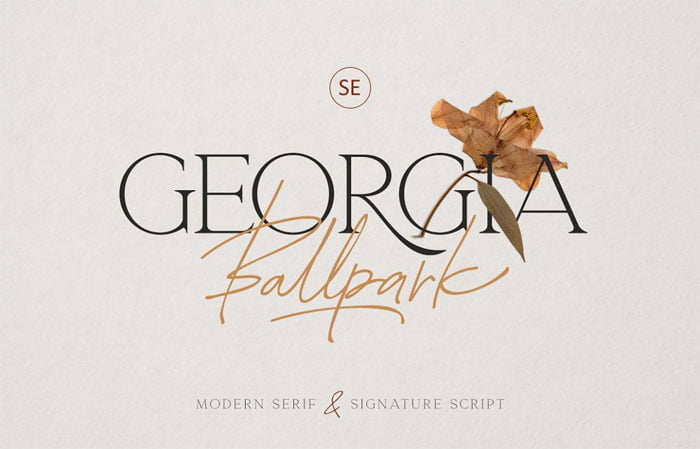
Sensational Font Bundle
Here in this post, you can Free Download Creativefabrica – Sensational Font Bundle compress files through the below link. Amazingly designed English font collection is a collection of several beautiful and unique handwritten fonts. This bundle includes a collection of beautiful handwriting fonts that allow graphic and typographic designers to create handwritten effects and realistic-looking writing. Each font in this bundle has different designs, lines, and sizes, which gives you flexibility in various designs and choices. These handwritten fonts are very suitable for creating diverse and creative styles in designs, logos, banners, posters, and other graphic projects. You Can Also Free Download Super Best Seller Collection Font Bundles.
Sensational Font Bundle
Other features of this package include the ability to change colors, sizes, and customization in these fonts, which allows you to best match the needs of your projects. If you are looking for creative and unique handwritten fonts, you have this handwritten font package that will give your designs and content life and a special visual state. This package is recommended to all graphic designers and graphic typographers, as well as people who are looking for flexibility and beauty in using fonts, which is available for download in OTF, TTF, and JPG formats. You Can Also Free Download Beautiful Fonts Mega Bundle.